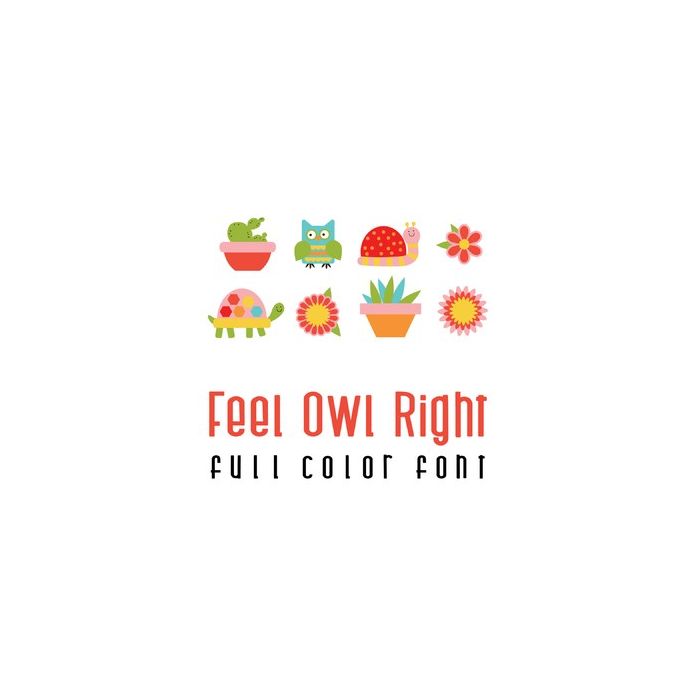
This adorable full color doodlebat font features adorable owls, snails, turtles, Spring flowers and more!. Perfect for cards, crafts, gifts, decor, scrap book pages, planner stickers, you name it!